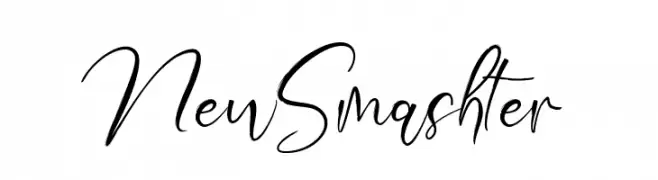
An elegant, flowing script font with sophisticated cursive letterforms.
A whimsical, artistic font with flowing, cursive-like strokes.
A whimsical and elegant cursive-style font with delicate loops and flowing strokes.